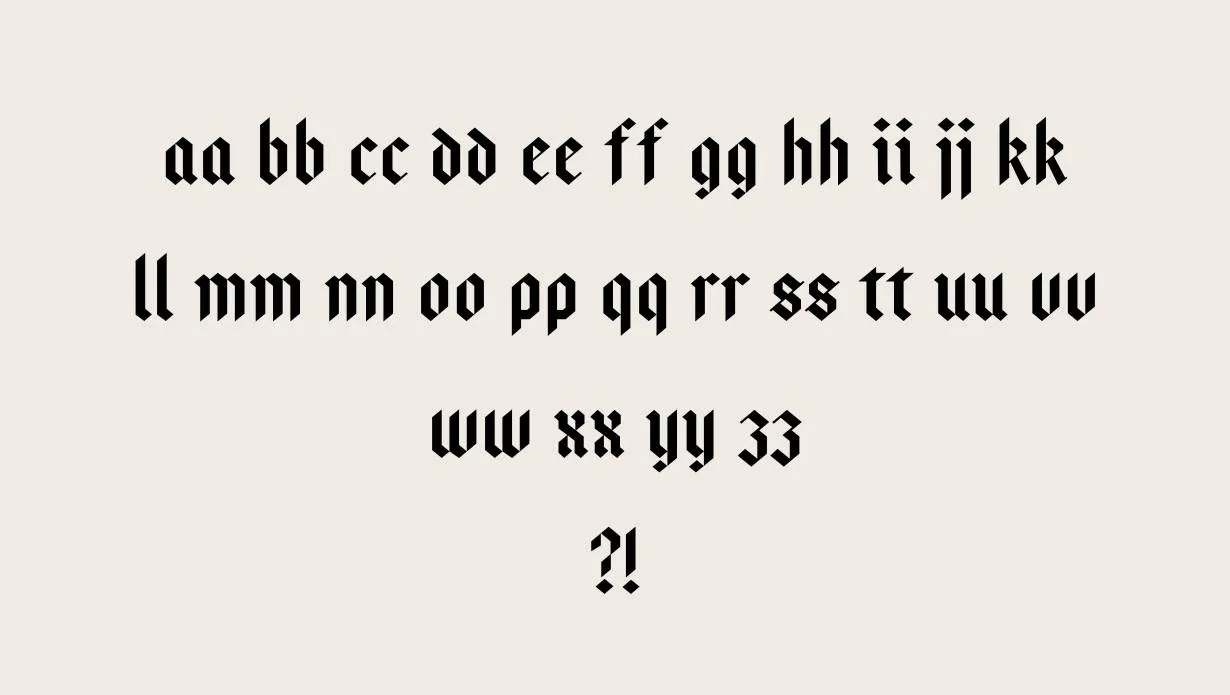
Bajern Font exudes a sleek and modern vibe, making it a versatile choice for a variety of design projects. Its stylish characters add a touch of sophistication, making it suitable for posters, banners, or even corporate branding.
| Name | Bajern Font |
| Designer | Anton Bolin |